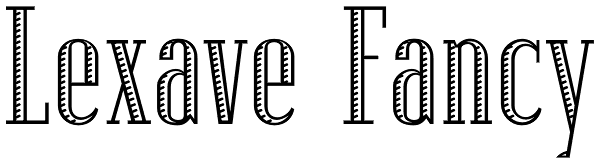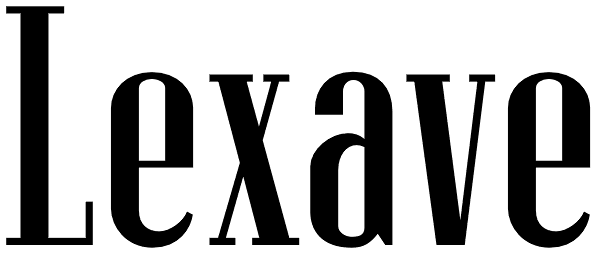
Lexave
Lexave is a condensed display font that thrives at huge sizes. It comes in three styles (regular, outline, and fancy), each of which has an italic version. Mix and match styles for elegant and funky designs for packaging, posters, or any other print...